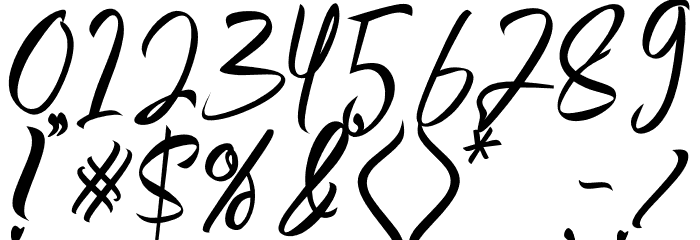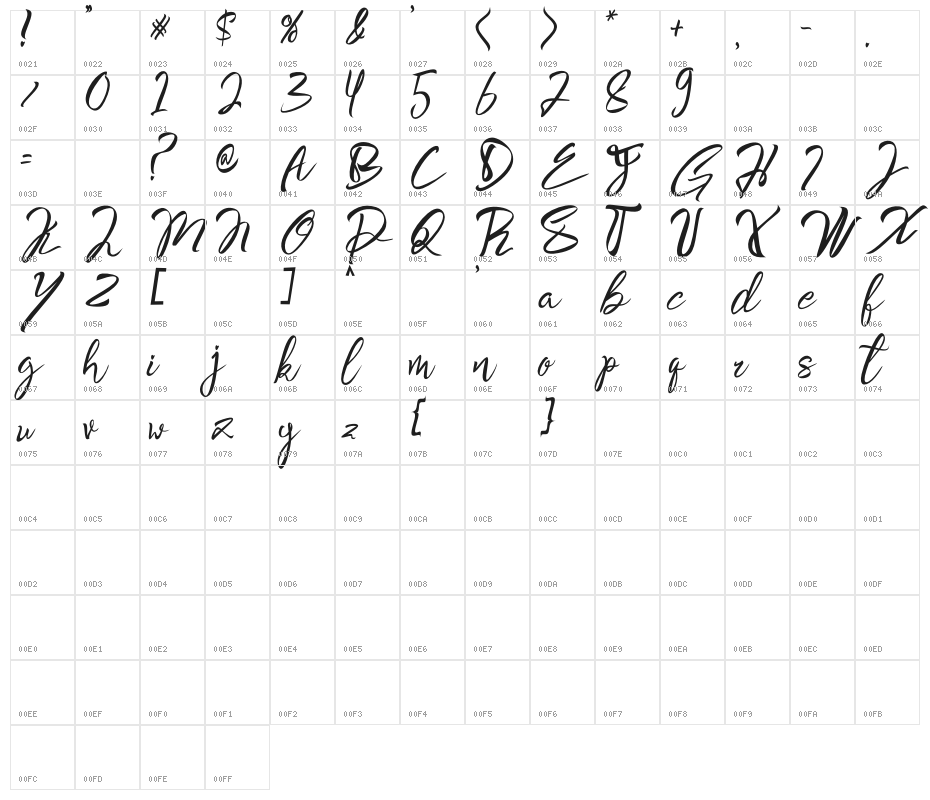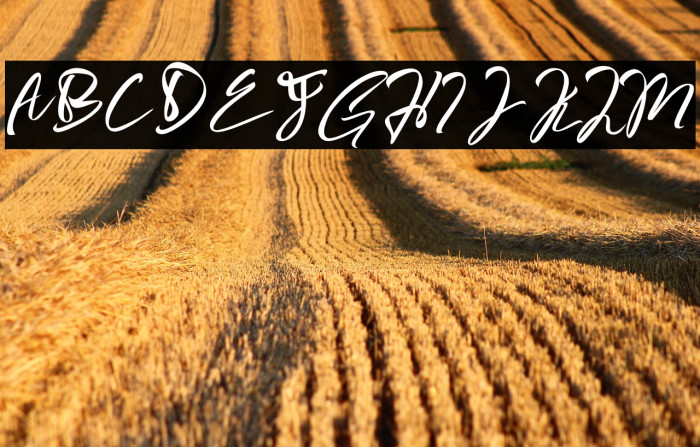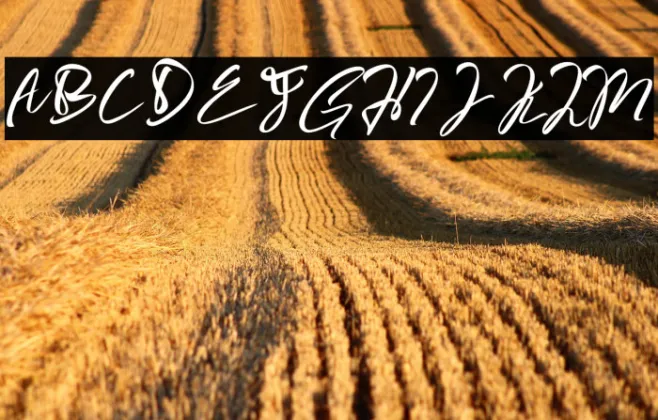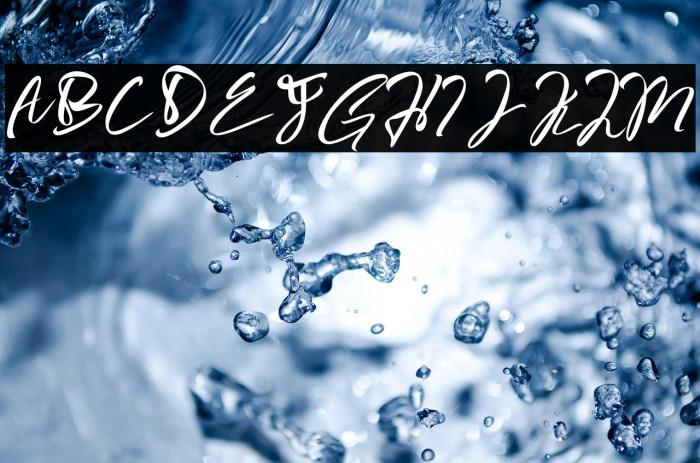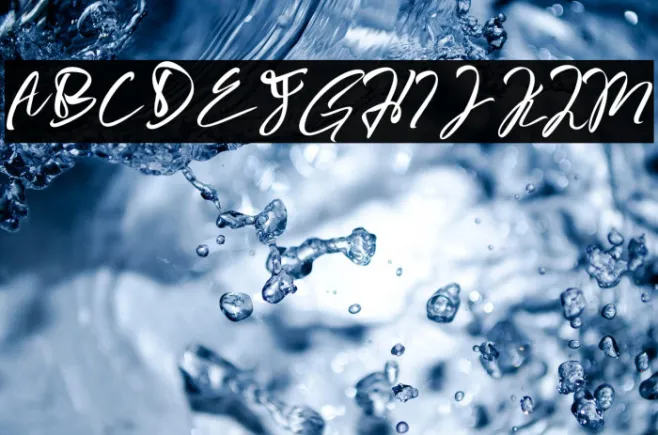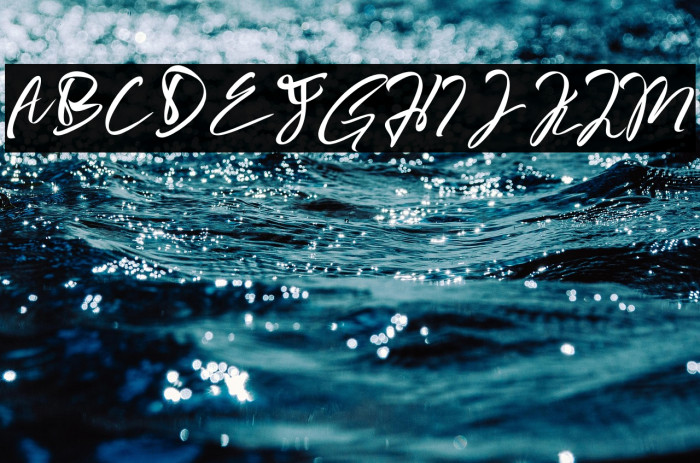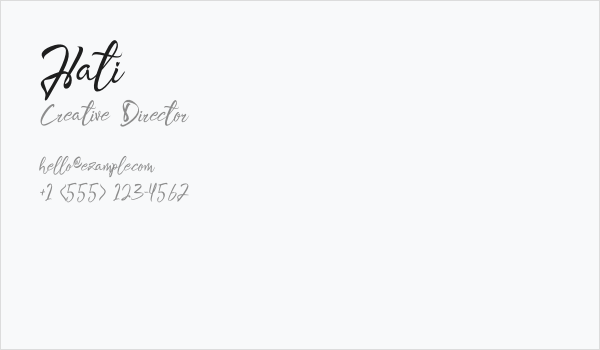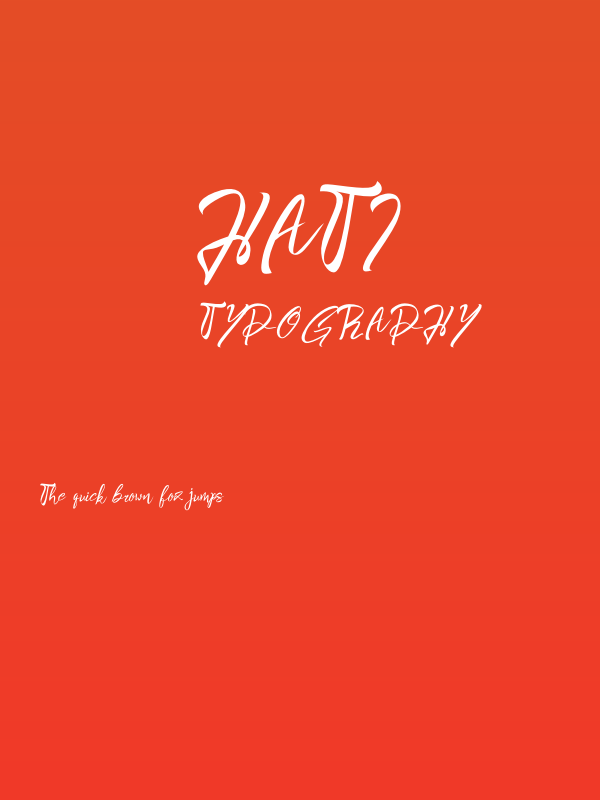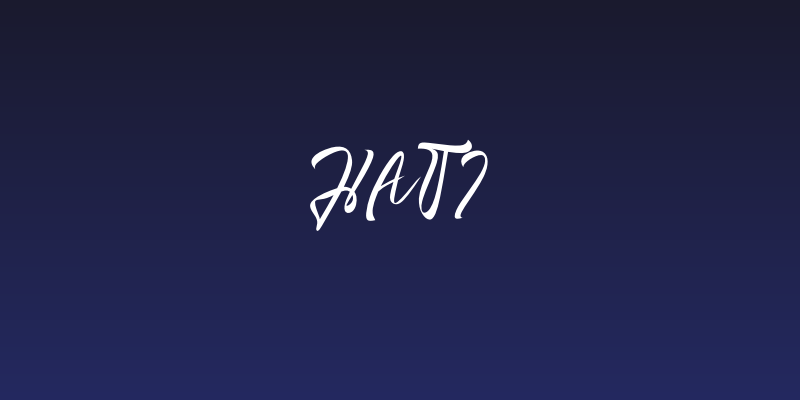
Hati Font
Hati Description
This font exudes a dynamic and fluid style, characterized by its cursive and handwritten appearance. The letters are interconnected, creating a seamless flow that mimics natural handwriting. The strokes are bold and expressive, with varying thickness that adds a lively and personal touch. The uppercase letters maintain a consistent height, while the lowercase letters exhibit a playful bounce, enhancing the font's energetic feel. Numbers and special characters are crafted with the same attention to detail, ensuring uniformity across all elements. This font is ideal for projects that require a personal, artistic, or informal touch.
| Proposed Projects | Ideal for greeting cards, invitations, personal branding, and artistic projects. |